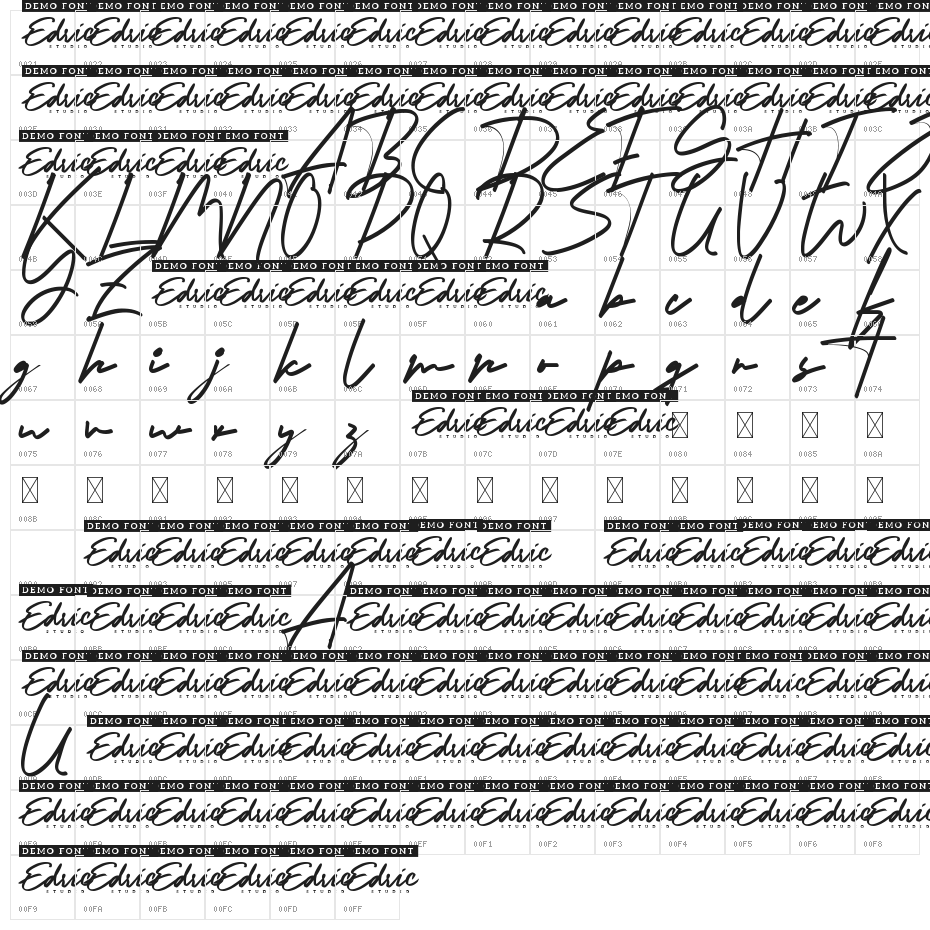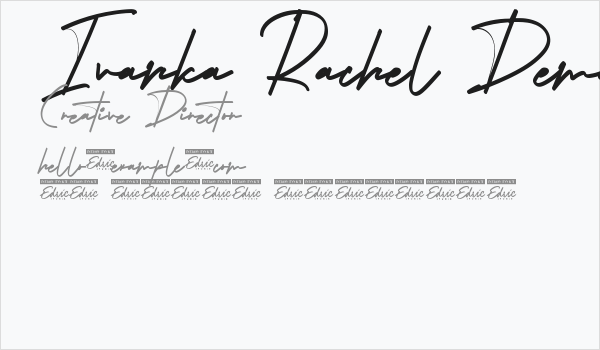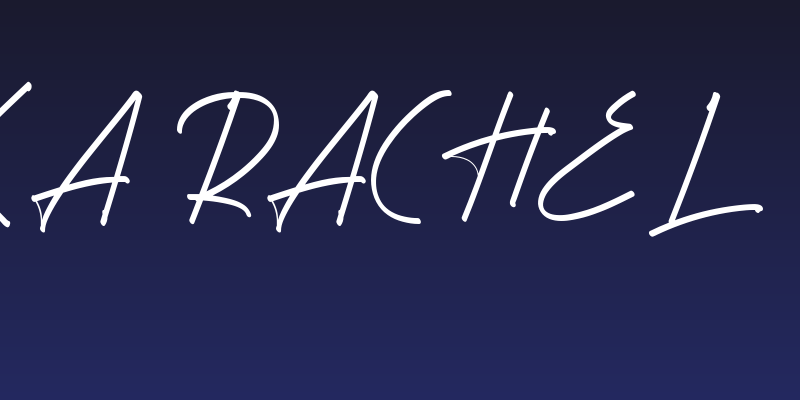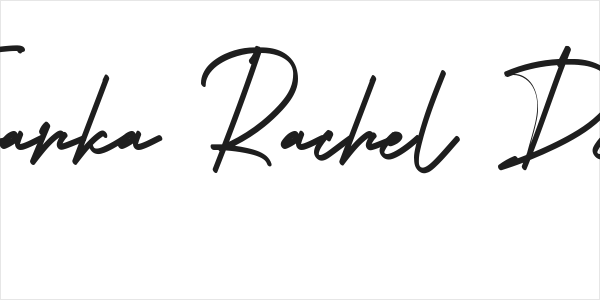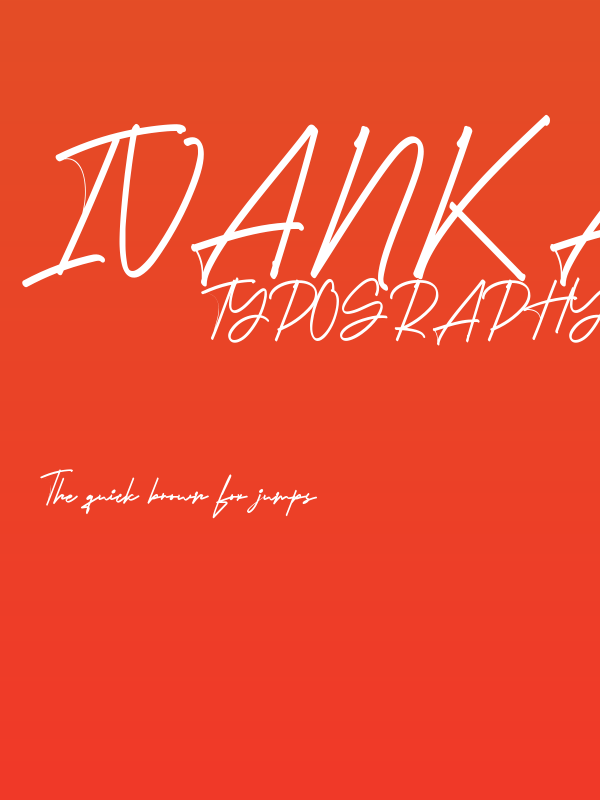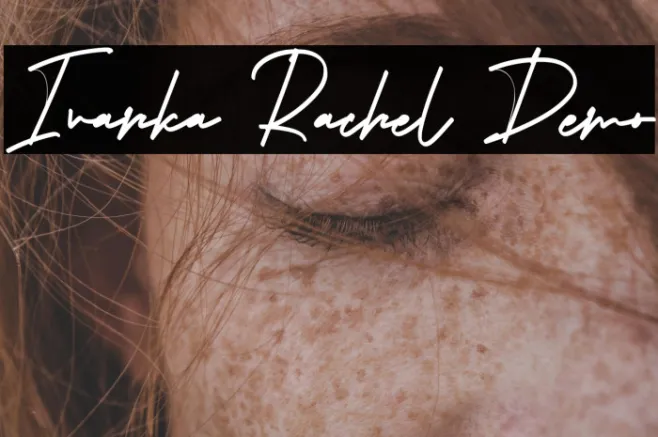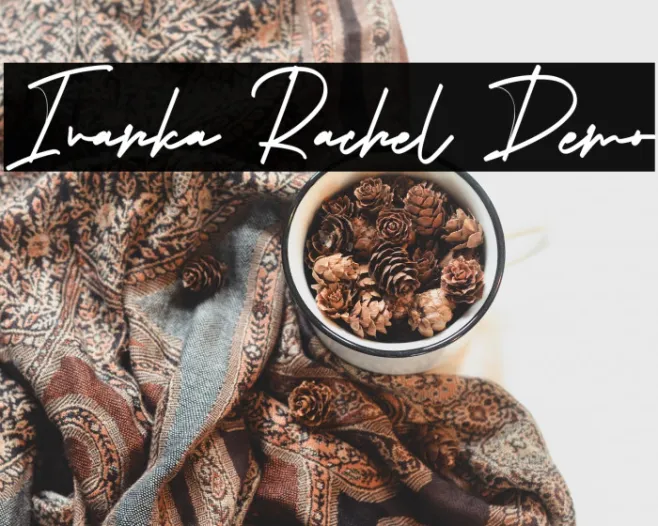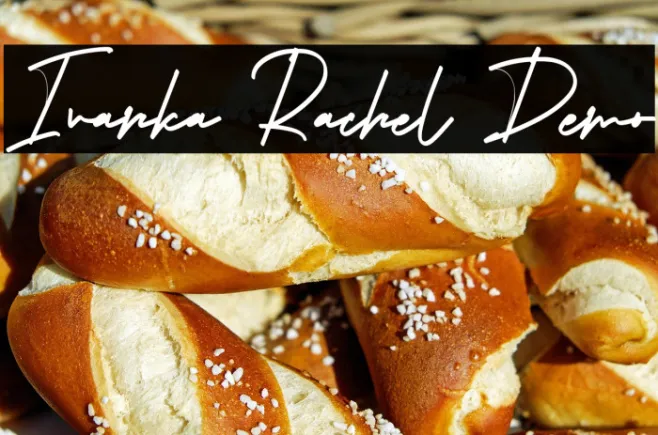
Ivanka Rachel Demo Font
Ivanka Rachel Demo Description
This font features a dynamic and expressive handwritten style, characterized by fluid and continuous strokes that mimic natural handwriting. The uppercase letters are slightly more structured, yet maintain a casual and artistic flair. The lowercase letters are more fluid, with some characters connecting seamlessly to others, enhancing the handwritten effect. The numbers and special characters follow the same style, ensuring consistency throughout. This font is ideal for projects that require a personal touch or an artistic, informal vibe.
| Overall Style | Casual, Artistic |
| Proposed Projects | Ideal for greeting cards, personal branding, artistic projects, and informal invitations. |